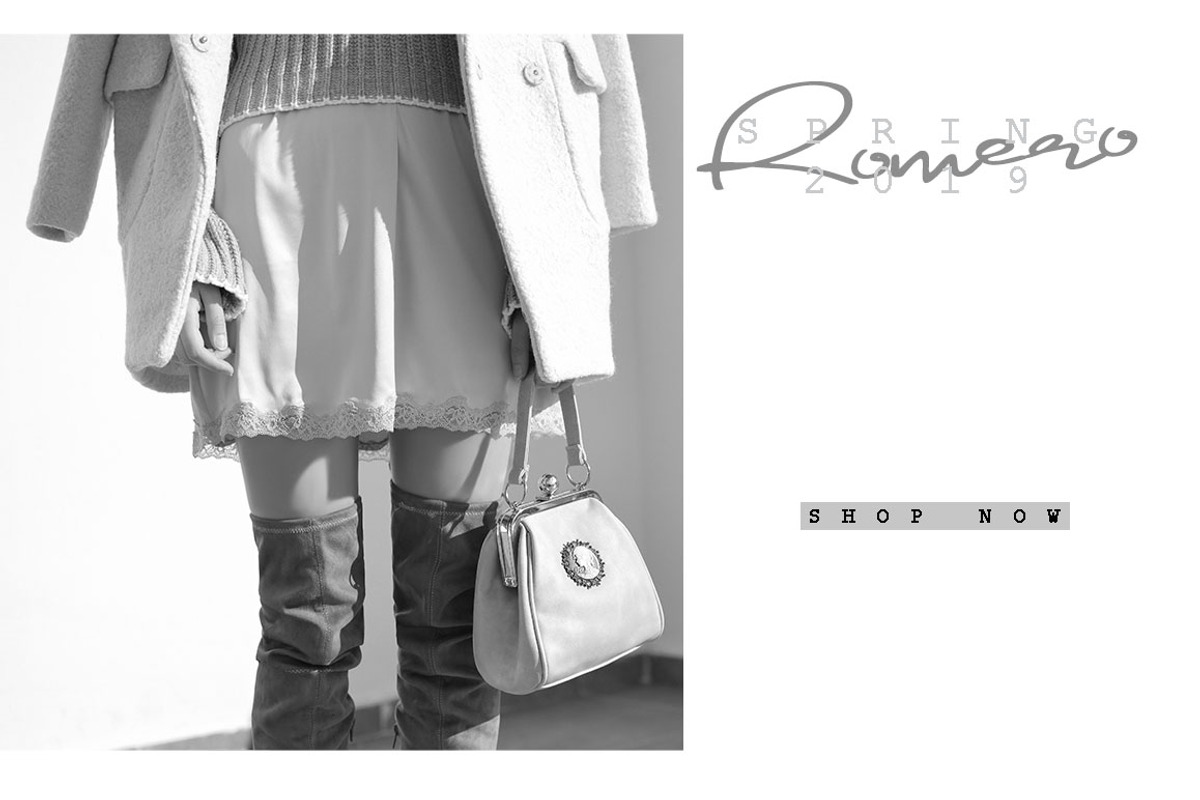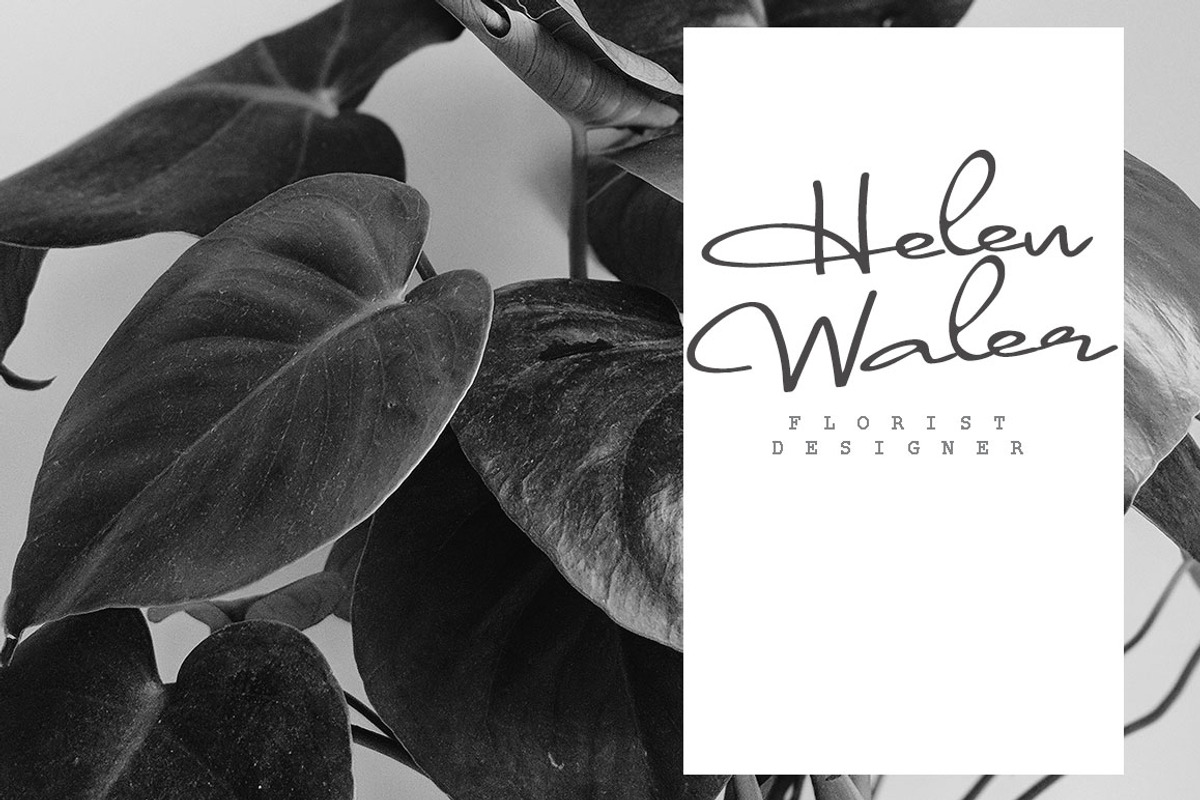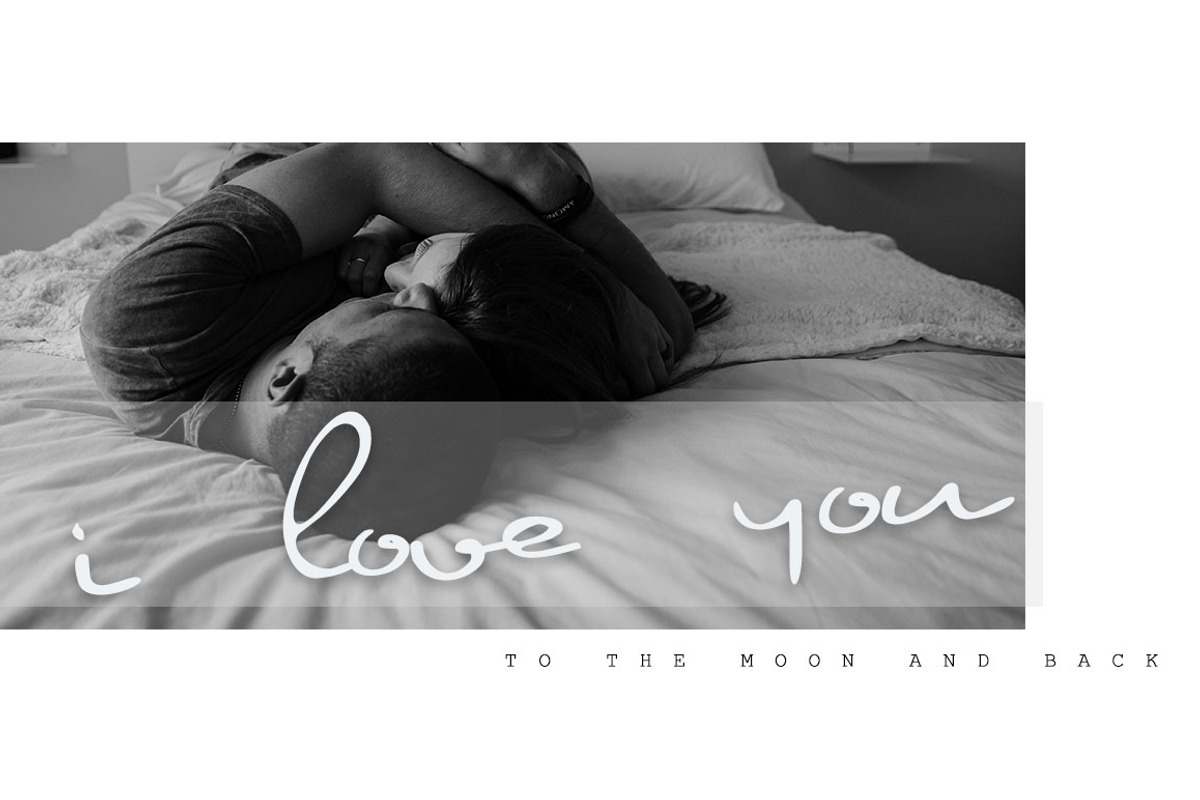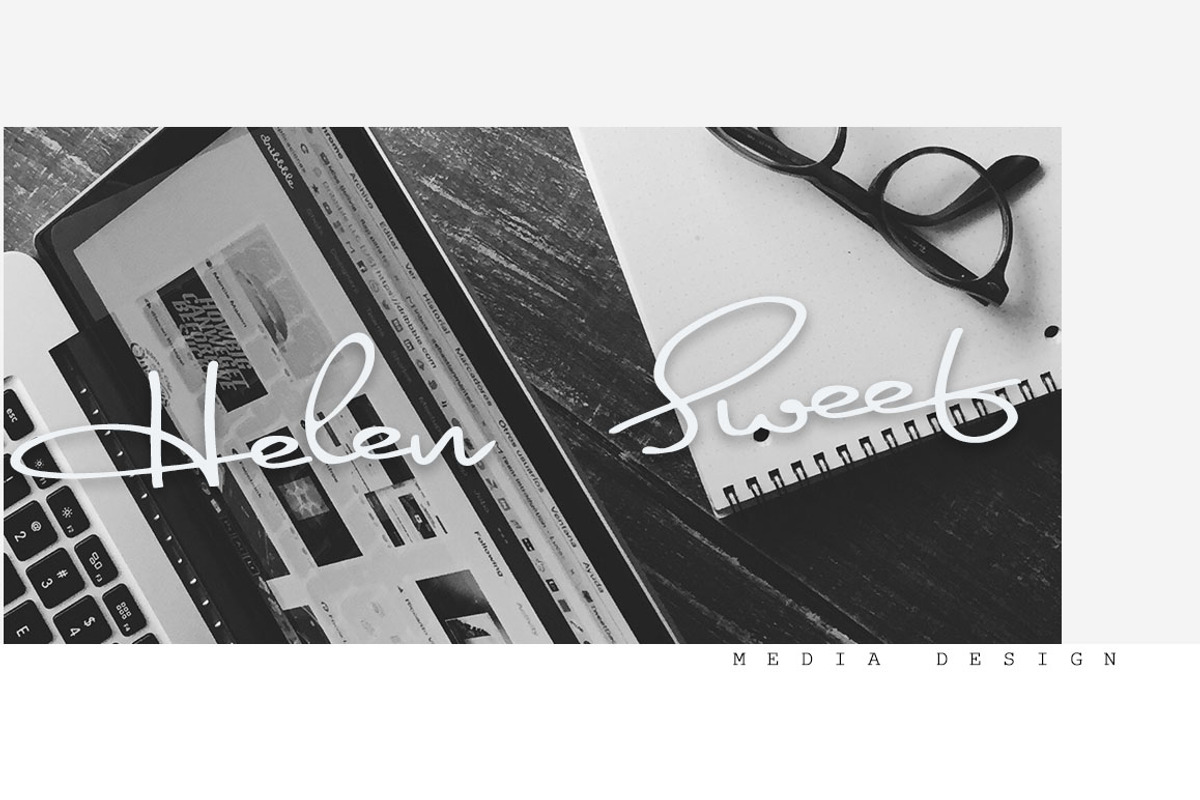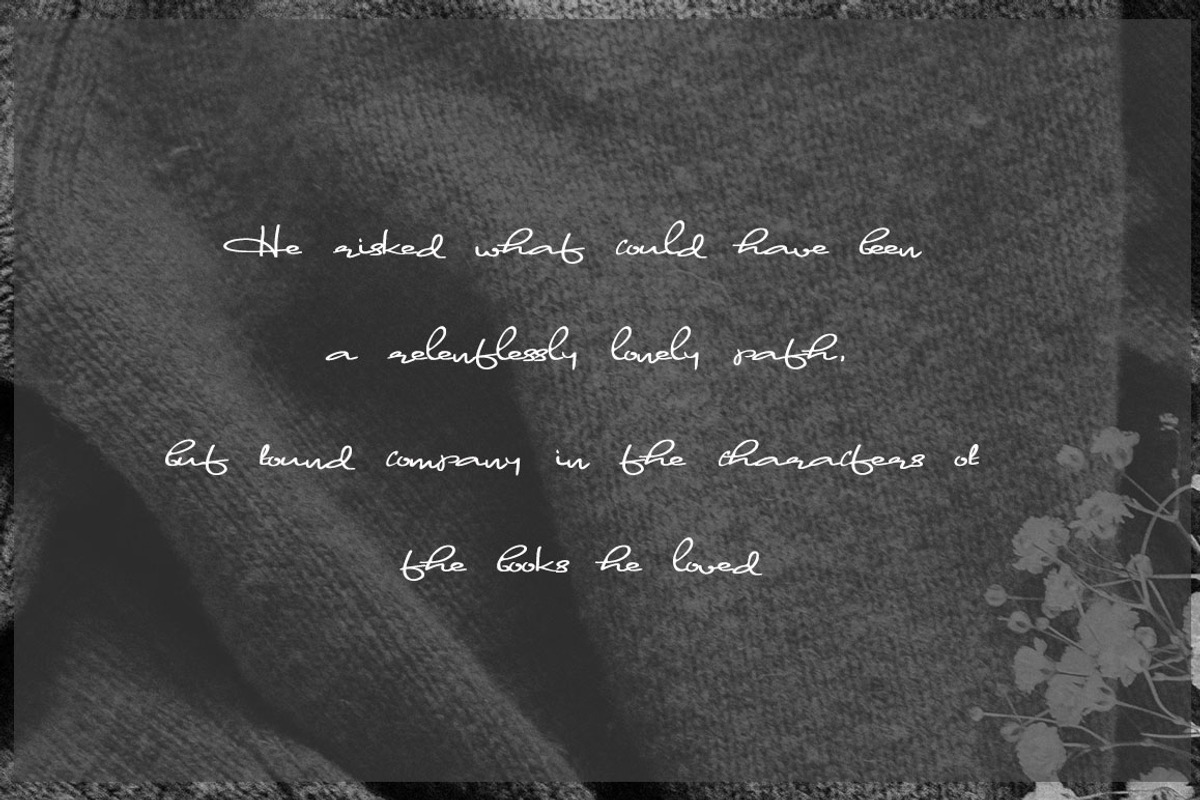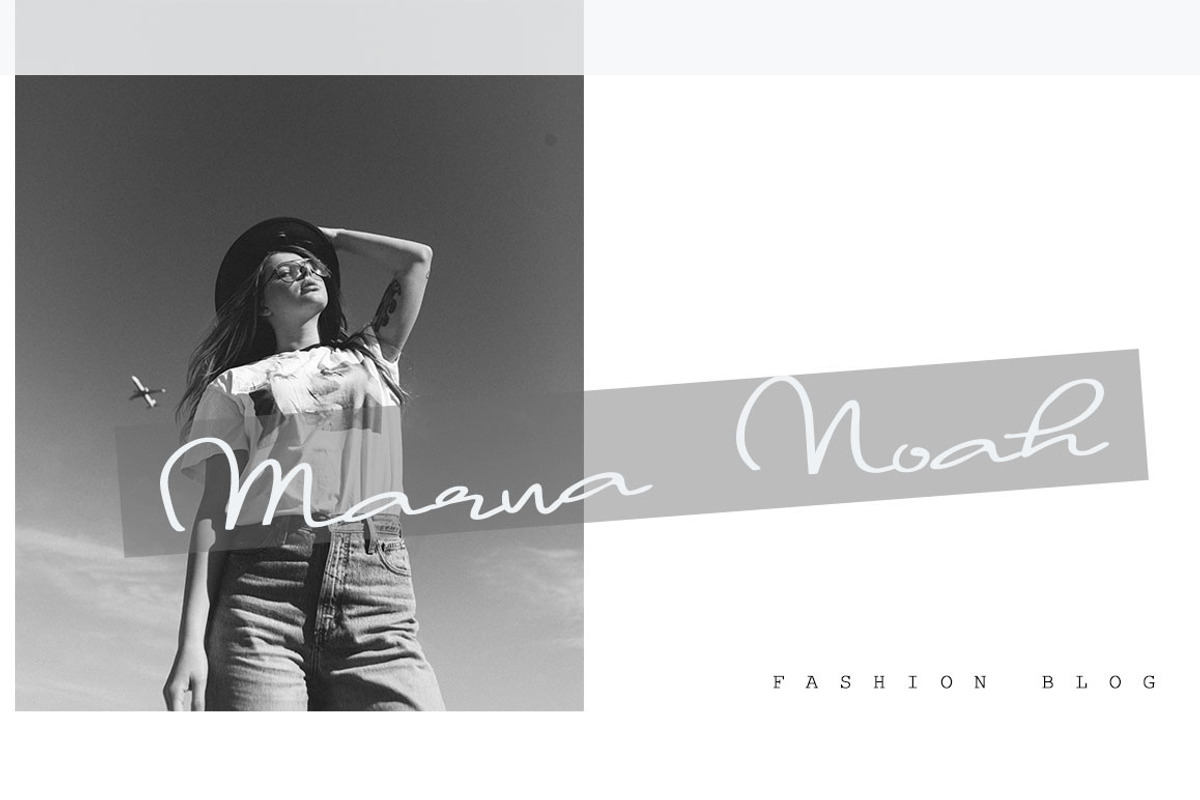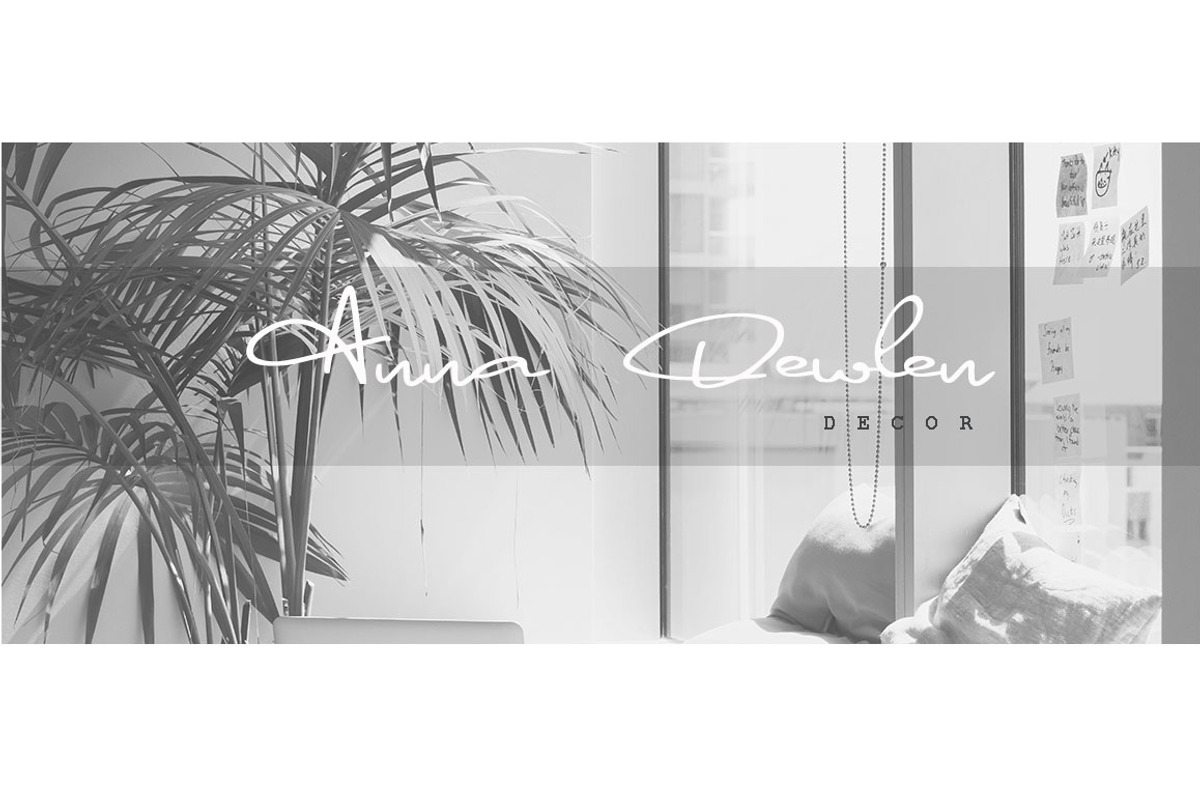
Nolet Handwritten Font
This handwritten script has been attentively written, with gentle curves to produce a font thats completely distinctive and original. Perfect for adding a elegant and unique touch to your lettering projects and branding.
Also with their help, you can create a Wedding lettering or beautiful frame for your home. Or just use for your small business, book covers, stationery, marketing, magazines and more. Nolet font built with uppercase, lowercase, numeral, punctuation.
Nolet Handwritten Font by Katie Holland fits naturally into Branding, posters, packaging, typography.